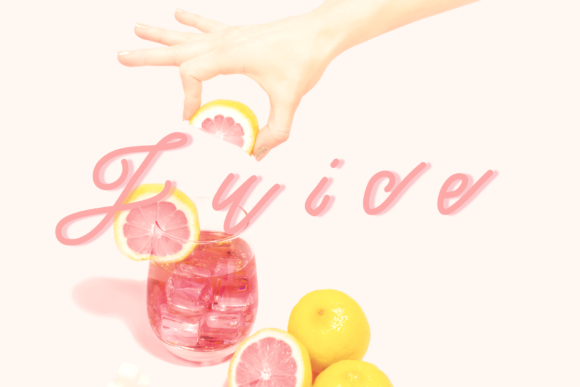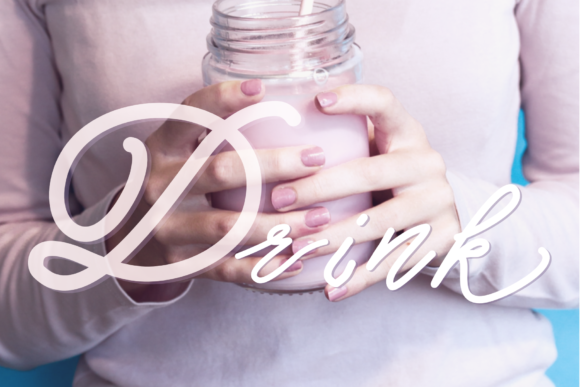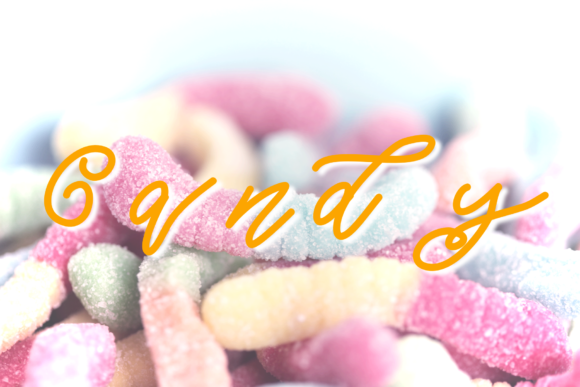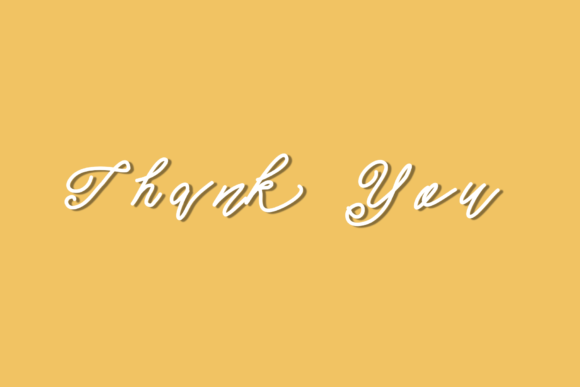
Introduction to Happy Letters Font
Do you ever find yourself in a moment of pure creative bliss, where every stroke of your pen or every click of your mouse feels like a masterpiece waiting to happen? For designers like you, those moments are what make all the hard work worth it. And for those who are looking for a design resource that can help bring their creative vision to life, we have just the thing – the Happy Letters Font.
With its lovely and flowing handwritten style, the Happy Letters Font is a versatile design resource that can be used to create anything from gorgeous wedding invitations to beautiful stationery art. Whether you’re working on a high-quality project or just want to add a personal touch to your social media posts, this font is sure to impress with its elegant and refined look, even on a transparent background.
Key Features of Happy Letters Font
- High-quality design resource perfect for creative projects, offering a unique and playful touch.
- Features a transparent background, allowing for seamless integration with any design or background.
- Unique characteristics include a rounded and cursive style, making it ideal for titles, headings, and creative text-based designs.
- Designed to be highly legible, even at small font sizes, ensuring that your message is conveyed clearly and effectively.
Honest Review: Happy Letters Font
As a designer, I’m always on the lookout for high-quality design resources to enhance my creative projects. I recently stumbled upon the Happy Letters Font, and I’m excited to share my honest review with you.
Here’s what works well about the Happy Letters Font: ✨ It’s incredibly versatile, making it suitable for a wide range of creative projects, from children’s books to party invitations. The font’s playful and whimsical feel is perfect for adding a touch of personality to your designs. Additionally, the font’s transparent background makes it easy to use on both light and dark backgrounds.
- Playful and whimsical feel that’s great for adding personality to designs
- Transparent background for easy use on different backgrounds
One limitation of the Happy Letters Font is that it’s not ideal for professional or formal projects. The font’s playful feel may not be suitable for corporate or business designs.
Overall, I’m impressed with the Happy Letters Font. It’s a great free download that’s perfect for designers who want to add a touch of whimsy to their creative projects. With its high-quality design and versatile use, it’s definitely a design resource worth checking out.
The Happy Letters Font is a high-quality design resource that can elevate your creative projects. With its transparent background, this font is perfect for adding a touch of whimsy and personality to your designs.
Tips for Getting the Most Out of Happy Letters Font
To get the most out of Happy Letters Font, use it in conjunction with other design elements, such as colorful backgrounds and graphics. You can also experiment with different font sizes and styles to add visual interest to your designs.
Common Use Cases for Happy Letters Font
The Happy Letters Font is perfect for use in creative projects, such as social media graphics, invitations, and party decorations. Its playful and whimsical design makes it a great choice for adding a touch of fun and personality to your designs.